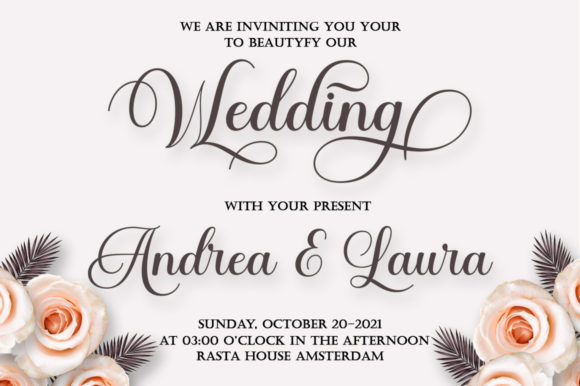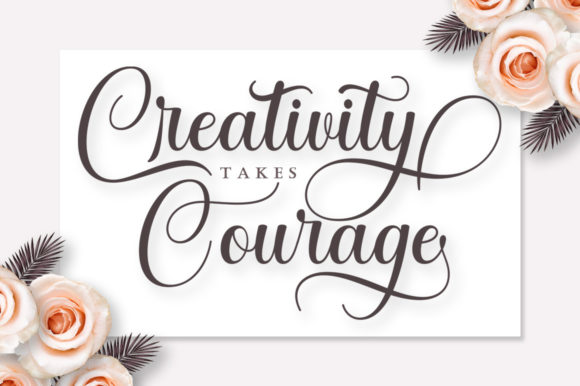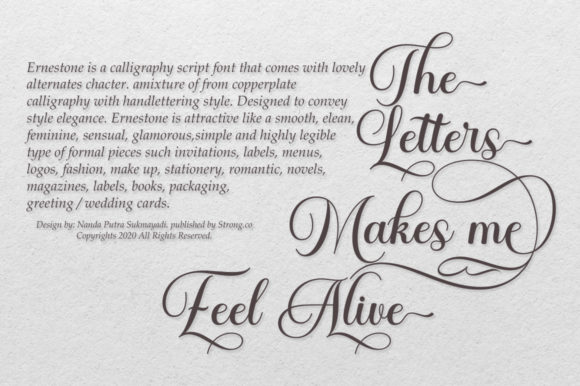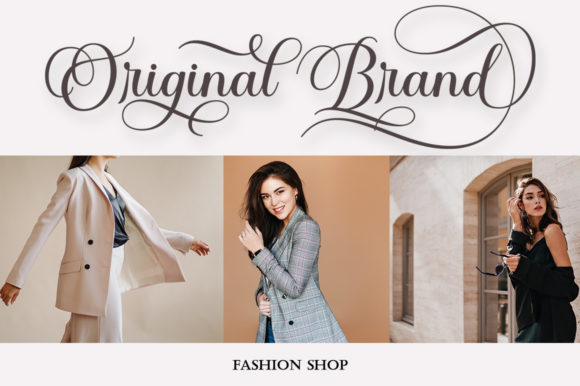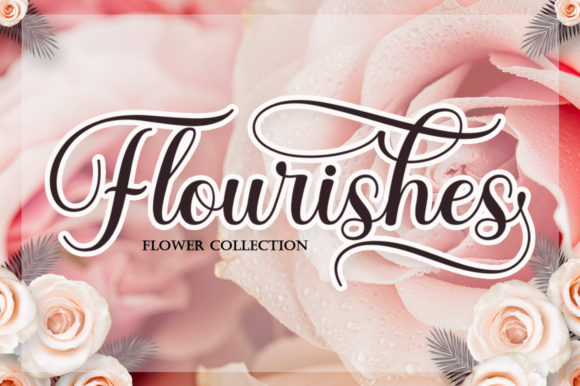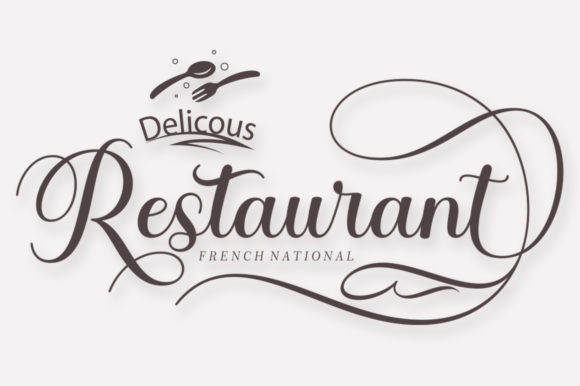
Unlocking the Art of Elegant Typography
Have you ever found yourself lost in a world of endless inspiration, surrounded by blank paper and a pen that seems to hold the key to unlocking your creative potential? This is where the magic begins – where the strokes of a pen or the clicks of a keyboard transform into a masterpiece. For designers and writers alike, the quest for the perfect font is a never-ending journey, and it’s one that can make all the difference in the world.
Enter the Ernestone Script Font, a stunning creation that embodies the essence of timeless classic calligraphy. This elegant script font is not just a tool, but a partner in your creative endeavors, offering a contemporary atmosphere and impeccable form that will elevate your designs to new heights. With its PUA encoding, accessing all glyphs and swashes is a breeze, allowing you to unleash your full creative potential.
Ernestone Script Font Key Features
- Unique Characteristics: Ernestone Script Font features a unique, elegant script style with flowing connections and subtle flair, perfect for creating visually appealing typography.
Ernestone Script Font Review
I recently had the chance to work with Ernestone Script Font, and I must say, it’s a lovely addition to any design project. ✨ The script font is elegant and sophisticated, making it perfect for projects that require a touch of luxury.
- ✨ Beautifully crafted letterforms: The font has a unique, handwritten feel that makes it stand out from more traditional fonts.
- ✨ Versatile: Ernestone Script Font works well for a variety of projects, from wedding invitations to product packaging.
- ✨ Highly customizable: The font comes with a range of OpenType features, allowing you to adjust the spacing and layout to suit your needs.
- ⚠️ Limited font sizes: The font may not be the best choice for small text sizes, as the letterforms can become difficult to read.
Overall, I’m impressed with Ernestone Script Font. It’s a high-quality, versatile font that’s perfect for designers looking to add a touch of elegance to their projects. While it may have some limitations, the benefits far outweigh the drawbacks. I’d definitely recommend it to anyone looking for a beautiful script font.
Tips for Getting the Most Out of Ernestone Script Font
Ernestone Script Font is best used for:
- Adding a touch of elegance to invitations and event materials.
- Creating a whimsical and playful feel for children’s products and marketing materials.
- Adding a vintage touch to branding and packaging materials.
Remember to adjust the font size and style to achieve the desired look and balance with other design elements.
Alternatives to Ernestone Script FontPlayfair Display
Playfair Display is a luxurious and elegant script font, ideal for use in high-end branding, advertising, and editorial designs. It features intricate flourishes and connections between letters, making it perfect for creating a sense of sophistication and refinement. Compared to Ernestone Script Font, Playfair Display has a more ornate and vintage feel, making it suitable for projects that require a touch of classic elegance.
Carolyna Pro is a modern script font with a elegant and refined feel. It’s perfect for use in branding, packaging, and editorial designs where a touch of sophistication is required. Compared to Ernestone Script Font, Carolyna Pro has a more streamlined and modern look, making it suitable for projects that require a clean and contemporary feel.
For optimal readability, we recommend using the Ernestone Script Font at a minimum size of 18-20 points, with a line height of at least 1.5-2 times the font size. This will help maintain the font’s elegance while ensuring the text remains legible and easy to read.